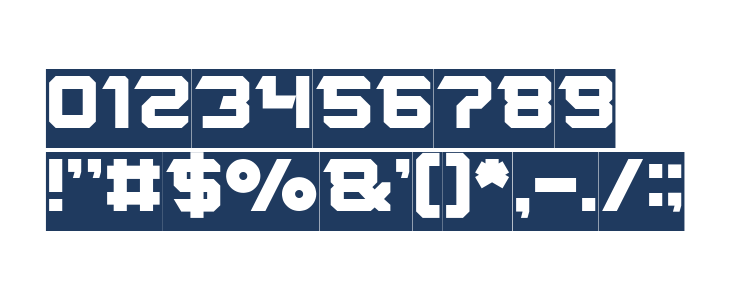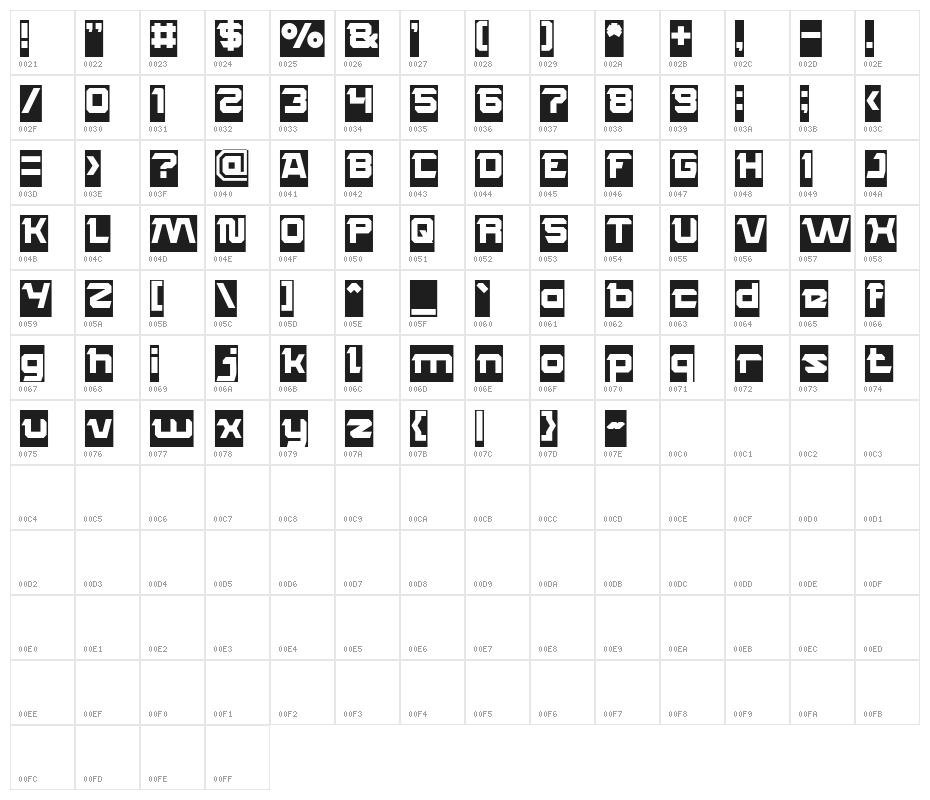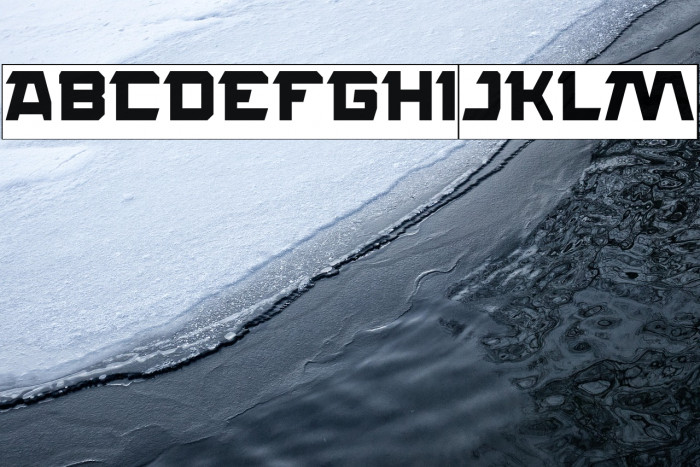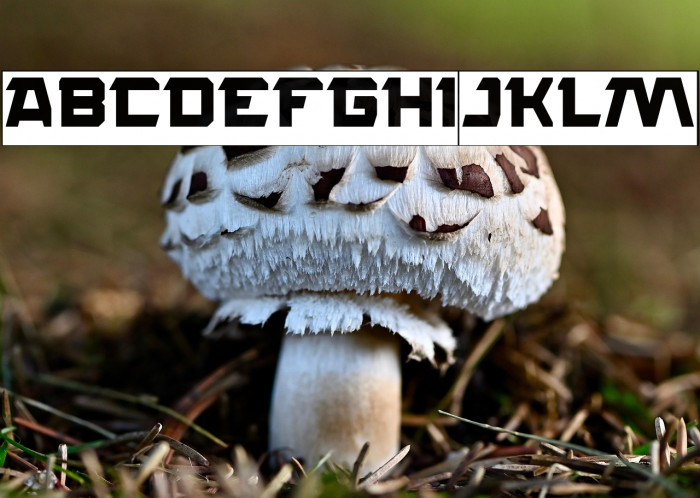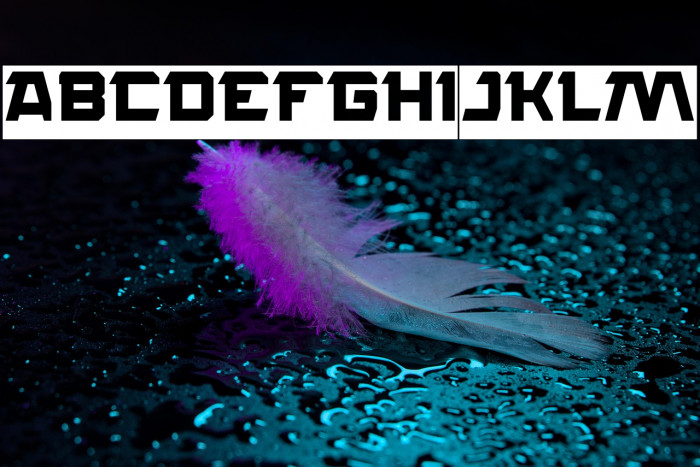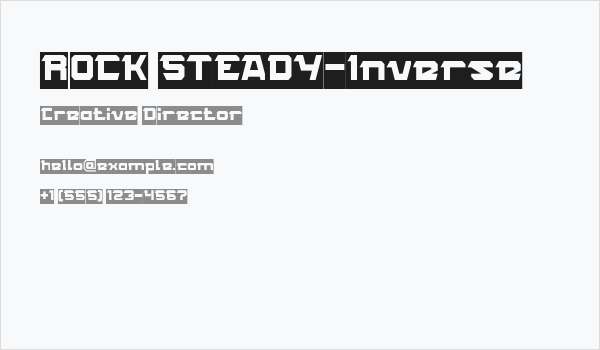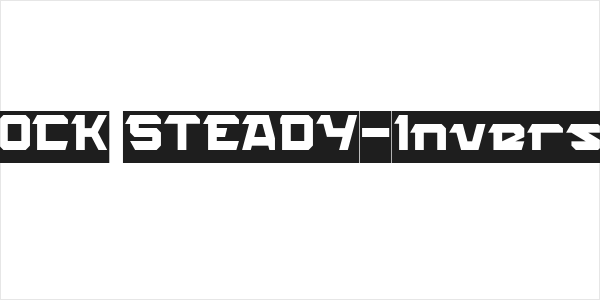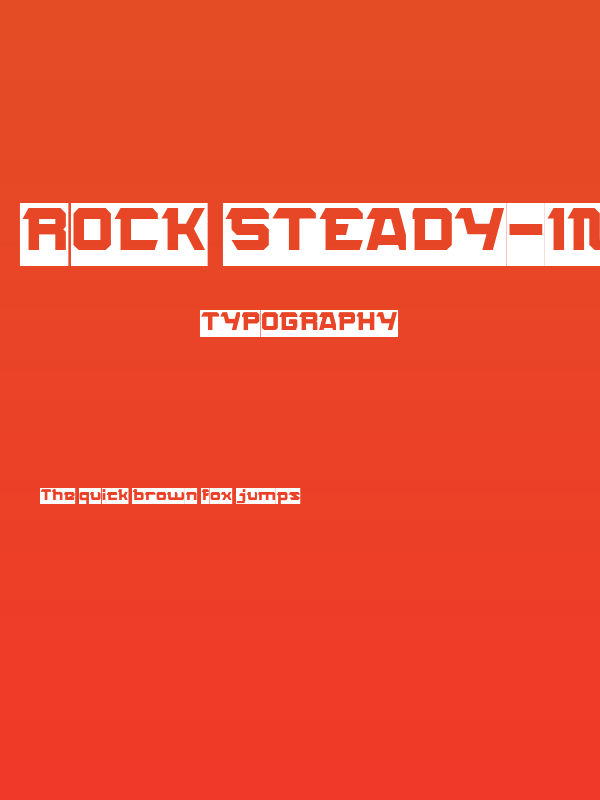
ROCK STEADY-Inverse Font
ROCK STEADY-Inverse Description
This font features a bold, geometric design with a strong presence. The characters are blocky and angular, with a distinct stencil-like appearance. The uppercase and lowercase letters maintain a consistent style, emphasizing sharp edges and a futuristic aesthetic. The numerals and special characters follow the same design principles, ensuring uniformity across all glyphs. This font is highly legible and makes a striking impact, ideal for attention-grabbing designs.
Proposed ProjectsIdeal for posters, logos, video game graphics, and branding materials that require a modern and bold look.